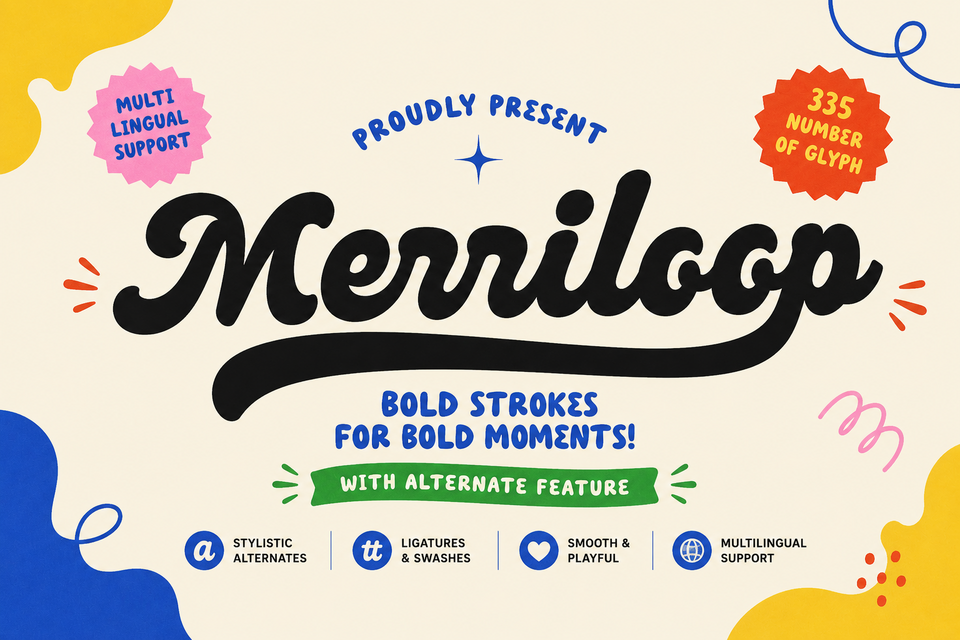
Merriloop — Bold Retro Script Font
Merriloop is a bold, rounded script display font with a hand-lettered retro style. Inspired by the 1960s and 1970s, it features flowing connected letters, expressive curves and loops, and thick strokes that stand out at any size. It is ideal for headlines, posters, logos, branding, flyers, and other designs that need a strong visual presence.
The font comes in one Regular style and includes 305 carefully designed glyphs. These include Basic Latin uppercase and lowercase letters, numbers, punctuation, and symbols.
Merriloop also includes OpenType features such as stylistic alternates, three stylistic sets, swashes, ligatures, and kerning. These features allow you to choose alternate letterforms, add decorative details, and maintain balanced spacing using the Glyphs panel in supported design applications.
Key features:
- Bold, rounded curves and loops
- Thick strokes with a vintage appearance
- Three stylistic sets
- Stylistic alternates and swashes
- Ligatures and kerning
- 305 glyphs
- Basic Latin letters, numbers, punctuation, and symbols
Merriloop works well for headlines, retro branding, packaging, invitations, social media graphics, event flyers, menu boards, badges, posters, T-shirt designs, and other creative projects.